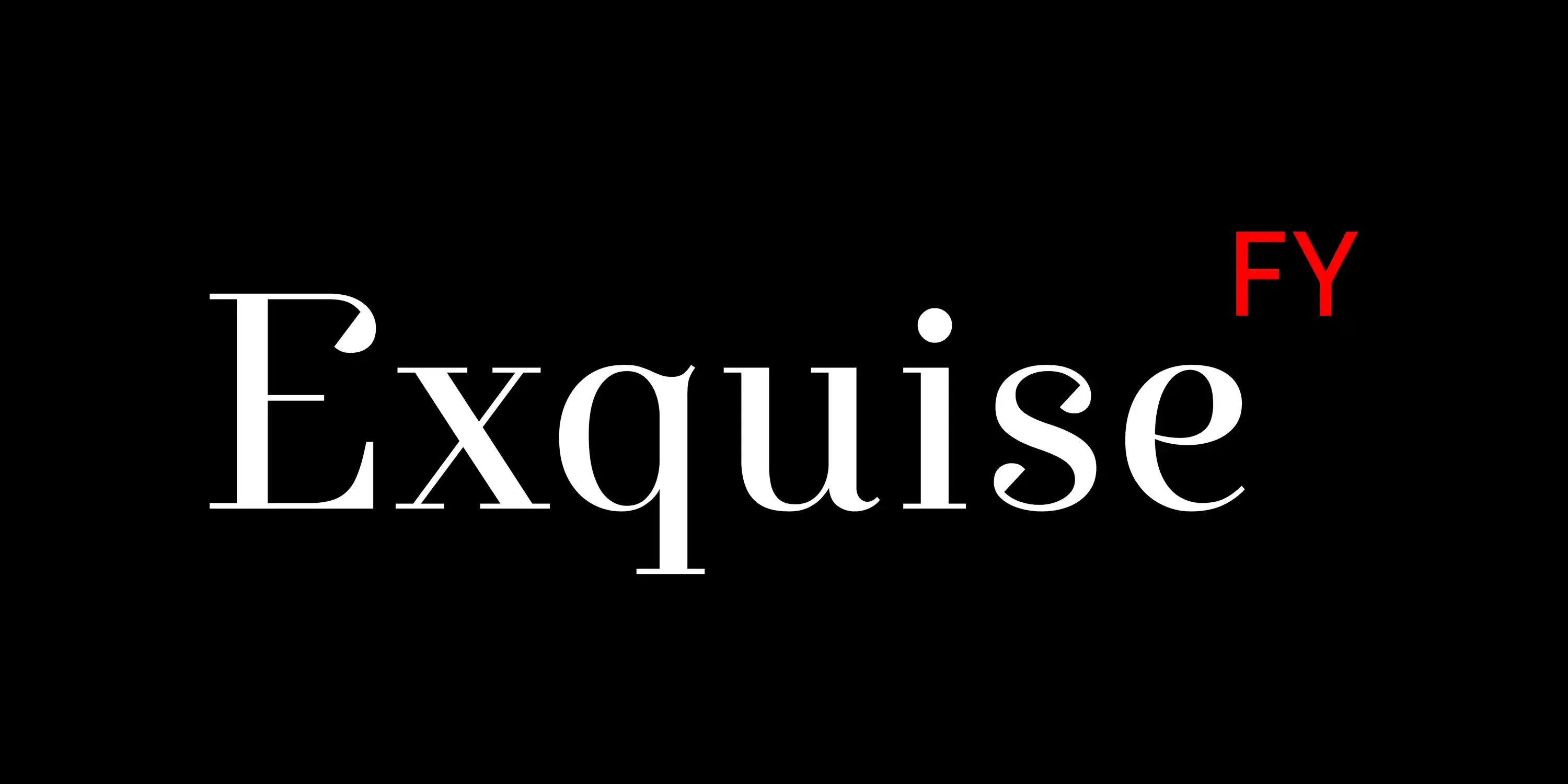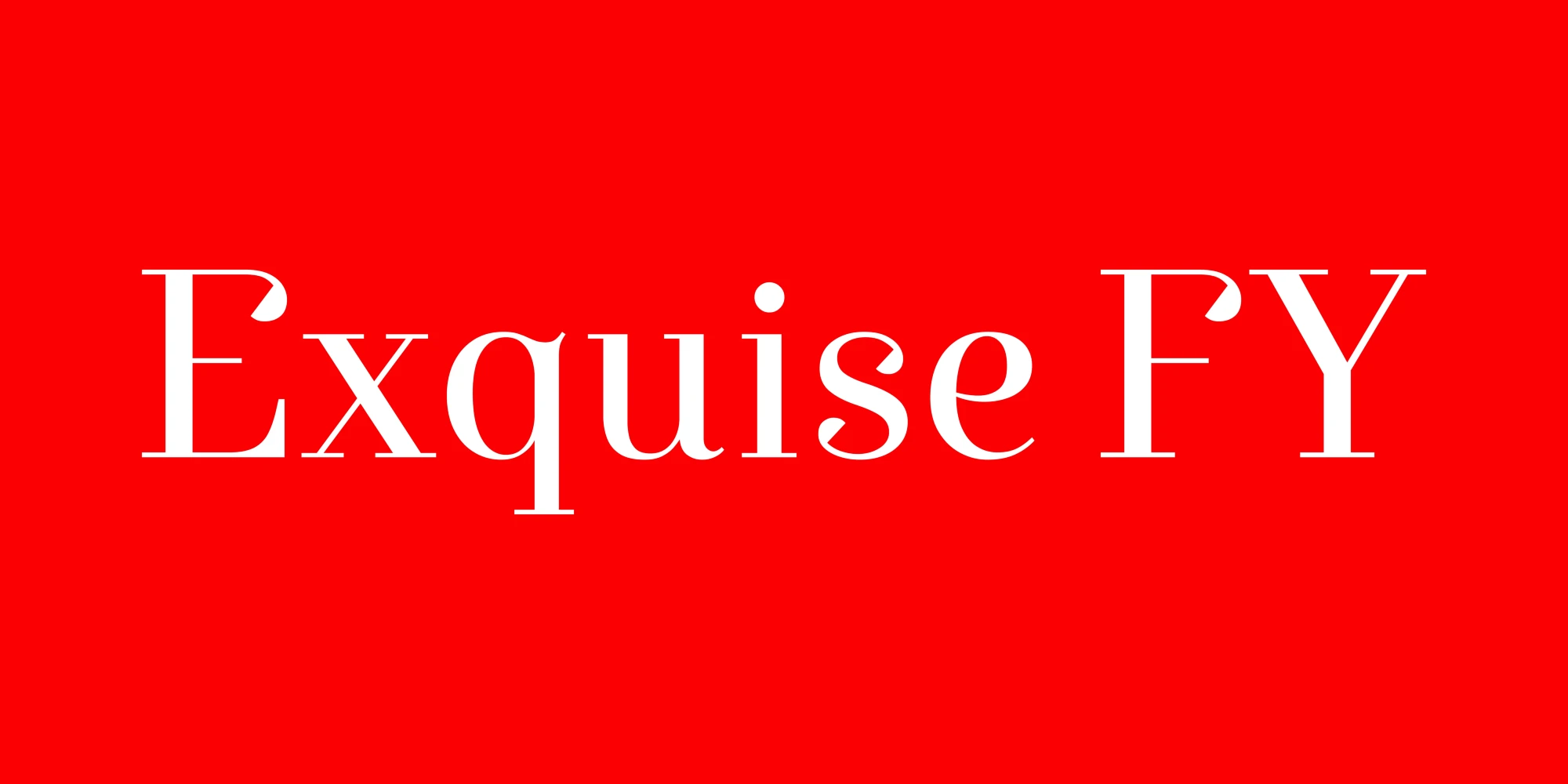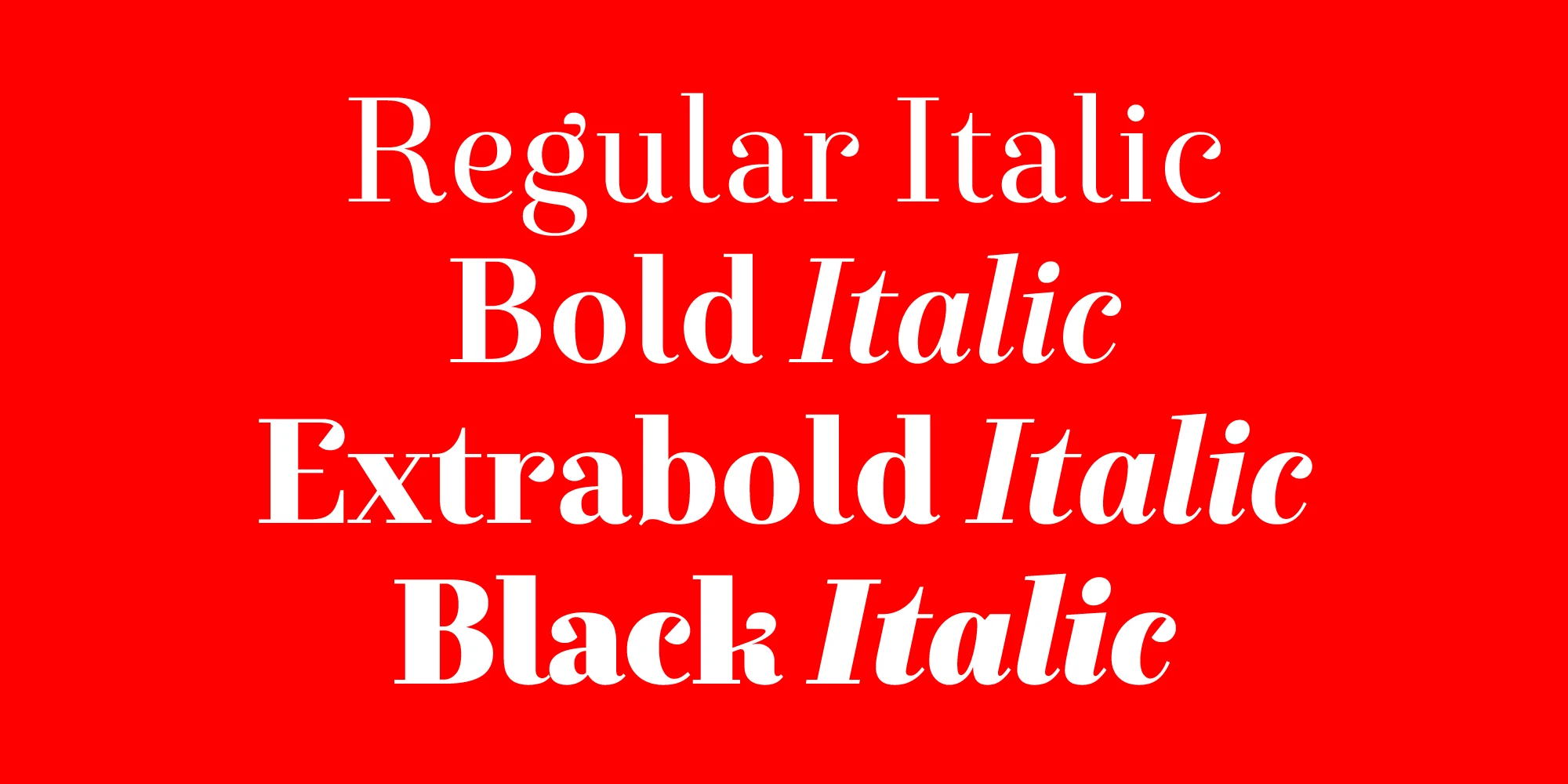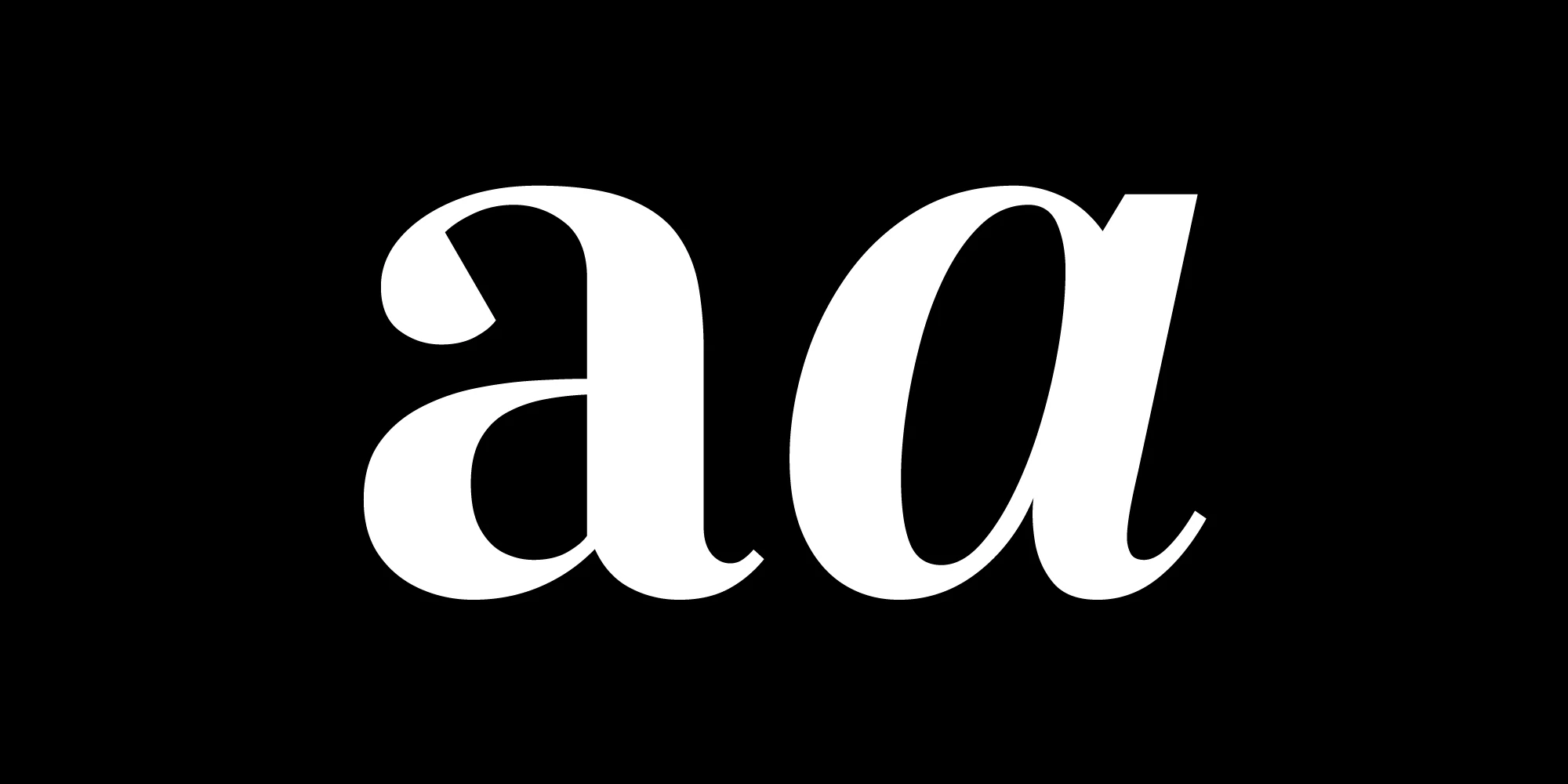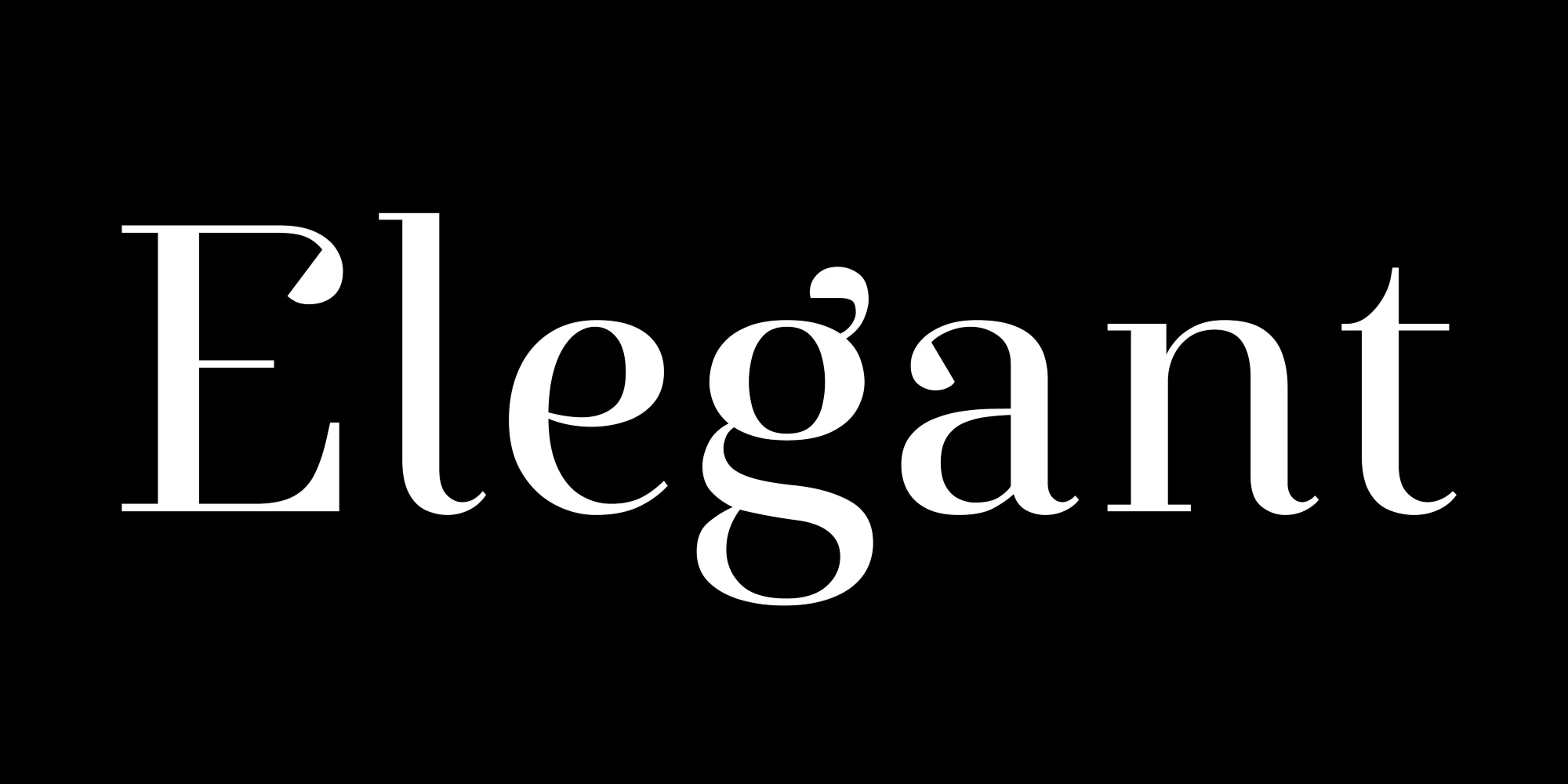
Exquise Font Family
Exquise FY is an elegant and distinguished serif family defined by unique details and refined shapes. It embodies the timeless Didone aesthetic while providing flexibility for a variety of design contexts. Its graceful forms combine originality with versatility, making it especially suited for editorial content, distinctive branding, and high-end visual identities where sophistication and clarity are essential. It is available as a Variable Font and in six styles, plus italics.
![Exquise font by Black[Foundry] — the upright serif letters E, x, q, u, i, s, e, F, and Y with high contrast strokes](https://typographer.io/1/assets/blk:exquise/banner-1.webp:size(2000,1000)?dc79)
![Exquise font by Black[Foundry] — the words “Regular Italic”, “Bold Italic”, “Extrabold Italic”, and “Black Italic” in white high-contrast serif lettering, with each line increasing in weight.](https://typographer.io/1/assets/blk:exquise/banner-2.webp:size(2000,1000)?5d07)
![Exquise font by Black[Foundry] — the letters “a” and “a” in an italic high-contrast serif style, the first with a decorative curl on top](https://typographer.io/1/assets/blk:exquise/banner-3.webp:size(2000,1000)?4b79)
![Exquise font by Black[Foundry] — the word “Elegant” in white upright high-contrast serif letters with a distinctive curled terminal on the lowercase g](https://typographer.io/1/assets/blk:exquise/banner-4.webp:size(2000,1000)?ece5)